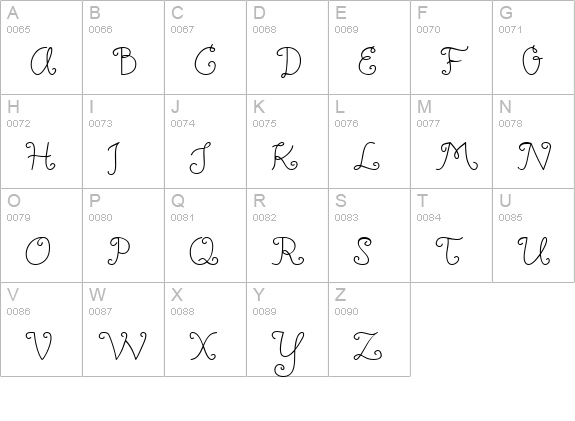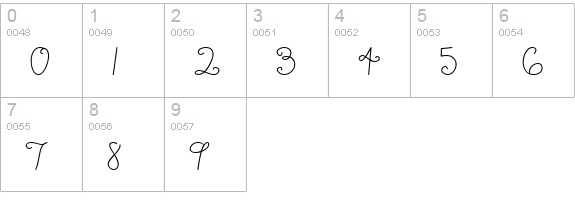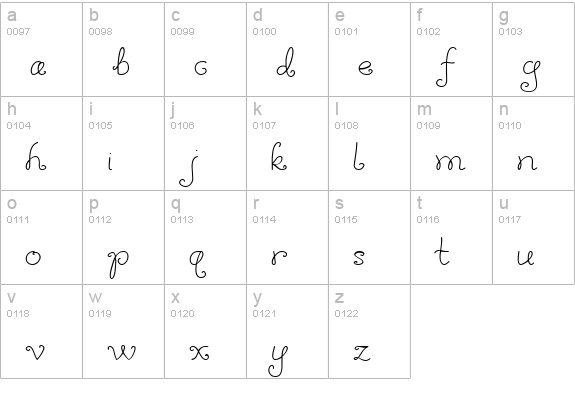
CK Whirl Font Details
Introducing CK Whirl font, a whimsical and playful typeface that will add a touch of charm to your projects. With its unique swirls and curls, this font is perfect for creating eye-catching designs that stand out. CK Whirl is freely available to download at FontsMarket.com, making it accessible to all designers looking to add a fun and creative element to their work. Whether you're working on invitations, posters, logos, or any other creative project, CK Whirl is sure to bring a touch of magic to your designs. Download it today and let your creativity whirl!